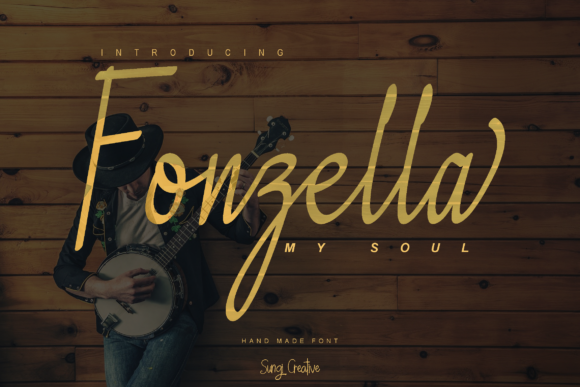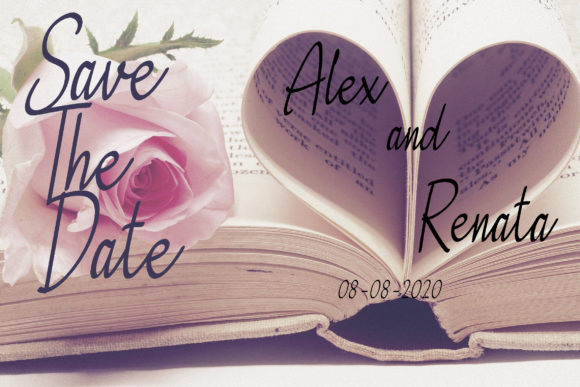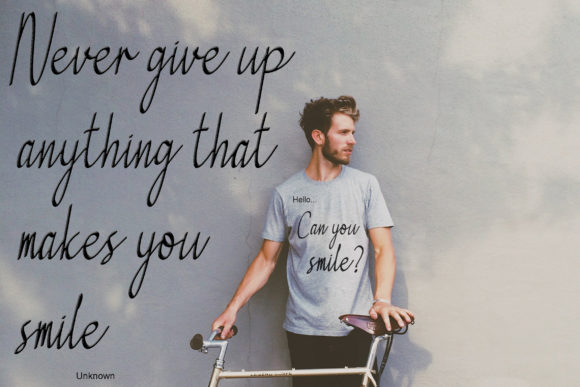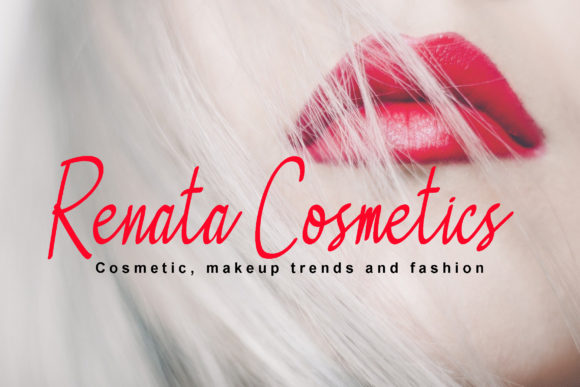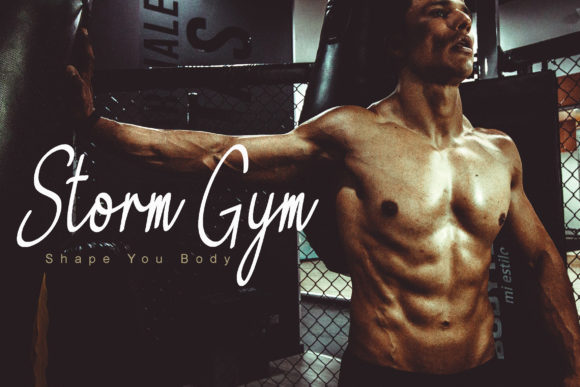
Fonzella Font
About Fonzella Font
Fonzella is an equally smooth and charming script with beautiful lettering. It will elevate a wide range of design projects to the highest level, be it branding, headings, wedding designs, invitations, signatures, logos, labels, and much more!